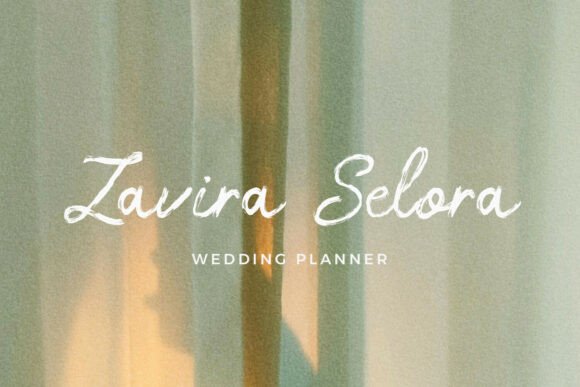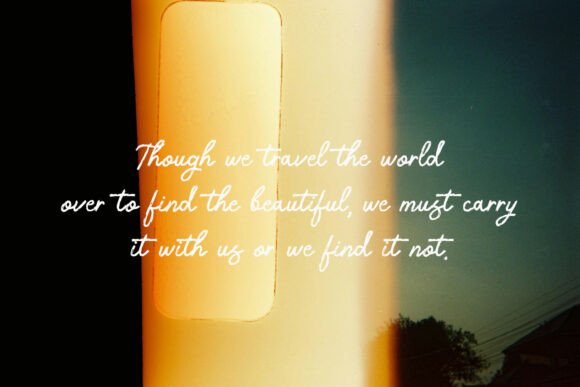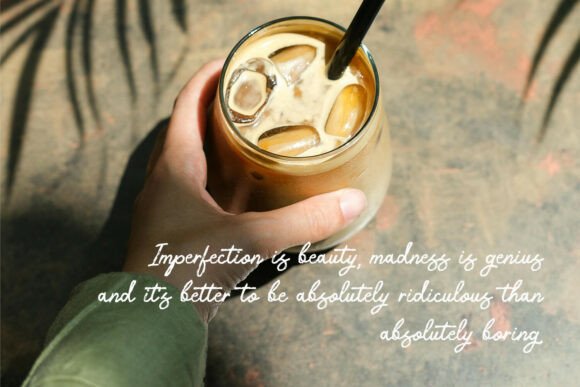
Introduction to Slimey Font
Have you ever sat down with a pen and paper, feeling the rush of creative energy as the words start flowing onto the page? That’s the magic of handwritten expression, and it’s a feeling that many designers strive to capture in their digital designs. One of the most effective ways to achieve this is by using the right font – and that’s where the Slimey Font comes in.
This unique handwriting script brush font is designed to evoke the feeling of spontaneous, organic movement, with fluid strokes and playful irregularities that give it a lively, expressive character. Whether you’re working on a creative project, designing social media graphics, or crafting a bold headline, the Slimey Font is the perfect addition to your design arsenal.
Key Features of Slimey Font
- Unique, hand-drawn design ideal for creative projects and artistic expressions
- Perfect for adding a touch of whimsy and personality to any design, from logos to typography
Honest Review: Slimey Font
As a designer, I’m always on the lookout for unique and high-quality design resources. The Slimey Font caught my eye with its quirky and playful vibe, making it perfect for creative projects that need a fun twist.
One of the standout features of the Slimey Font is its transparent background, which allows for seamless integration with other design elements. This makes it a great addition to any design resource collection.
- Unique and playful font style
- May not be suitable for formal or professional projects
- Not as versatile as more neutral font styles
Overall, I’m impressed with the Slimey Font’s potential as a design resource. Its fun and playful vibe makes it perfect for creative projects, and its high-quality design ensures it will stand out from the crowd. While it may not be suitable for every project, it’s a great addition to any designer’s toolkit.
Tips for Getting the Most Out of Slimey Font
To maximize the potential of Slimey Font, experiment with different font sizes, colors, and effects. Combine it with other design elements to create a unique and eye-catching design. Use the font’s transparent option to create a seamless background or overlay.
Common Use Cases for Slimey Font
Slimey Font is suitable for various creative projects, including logos, posters, social media graphics, and presentations. Its versatility and high-quality design make it an ideal choice for designers and non-designers alike.
Alternatives to Slimey Font
1. Comic Sans MS
Comic Sans MS is a sans-serif font known for its playful and informal feel, making it perfect for creative projects that require a lighthearted tone. It can be used with a transparent background to create a unique design element.
Compared to Slimey Font, Comic Sans MS is more traditional and less quirky, but still offers a fun and approachable feel. It’s ideal for use in blog posts, social media graphics, or other design resources that need a casual touch.